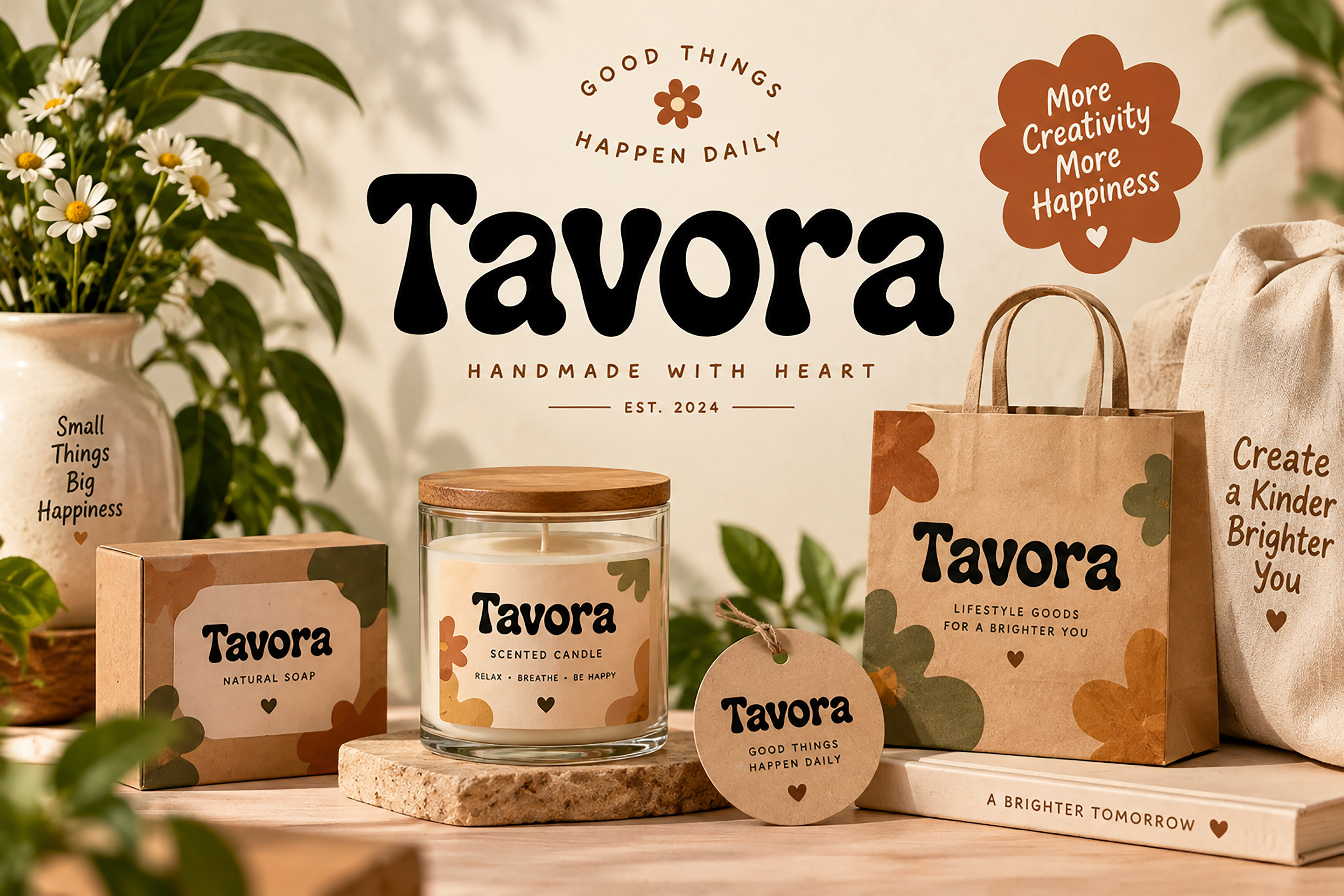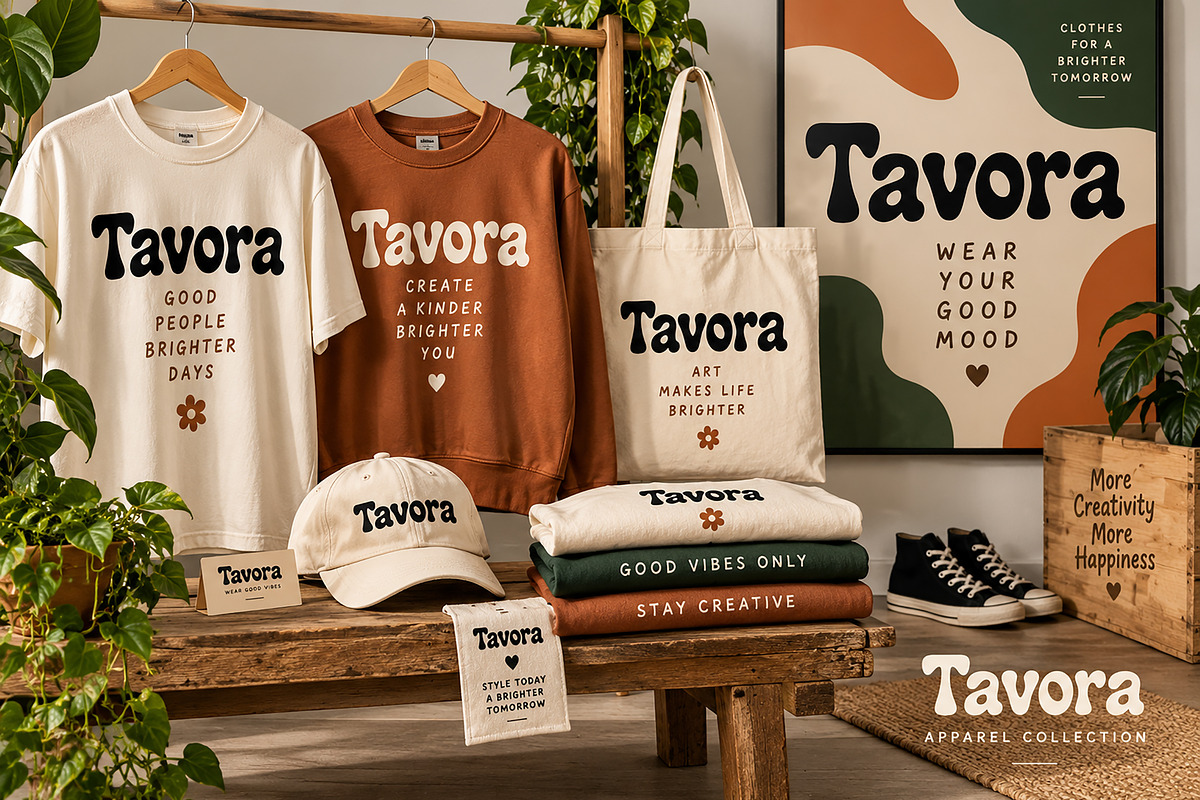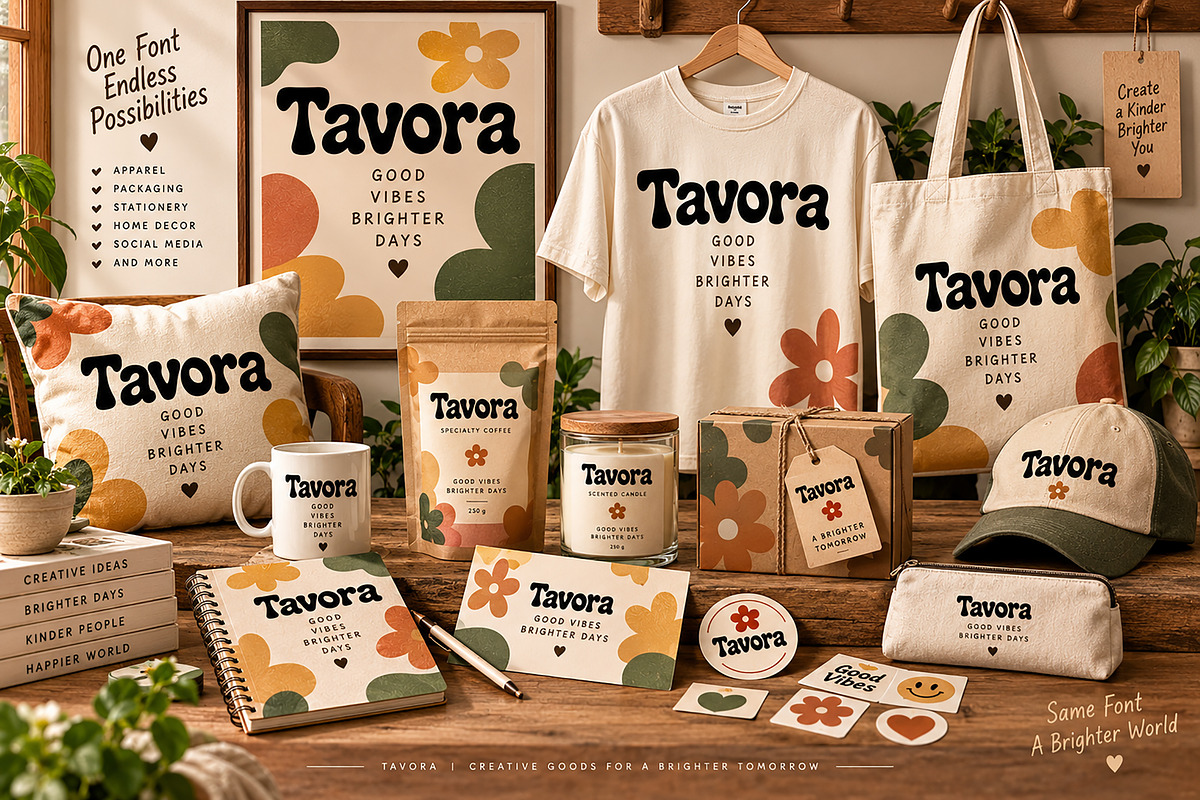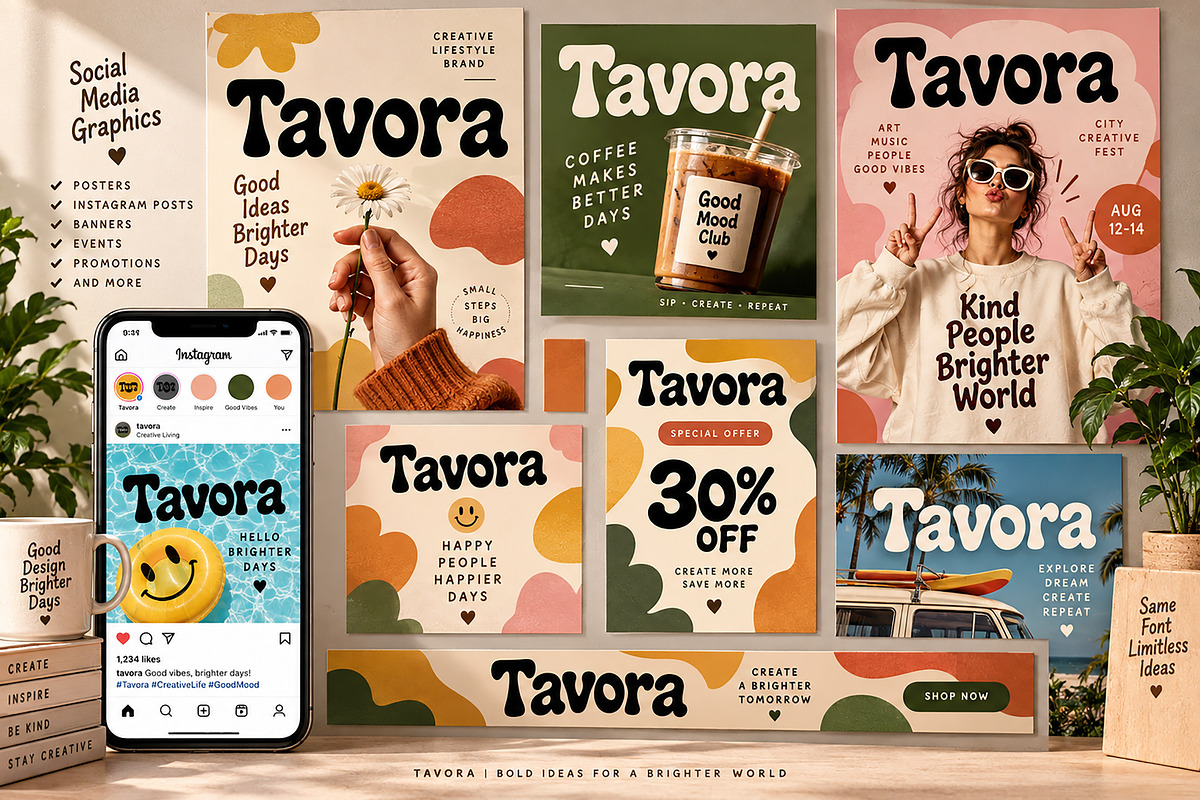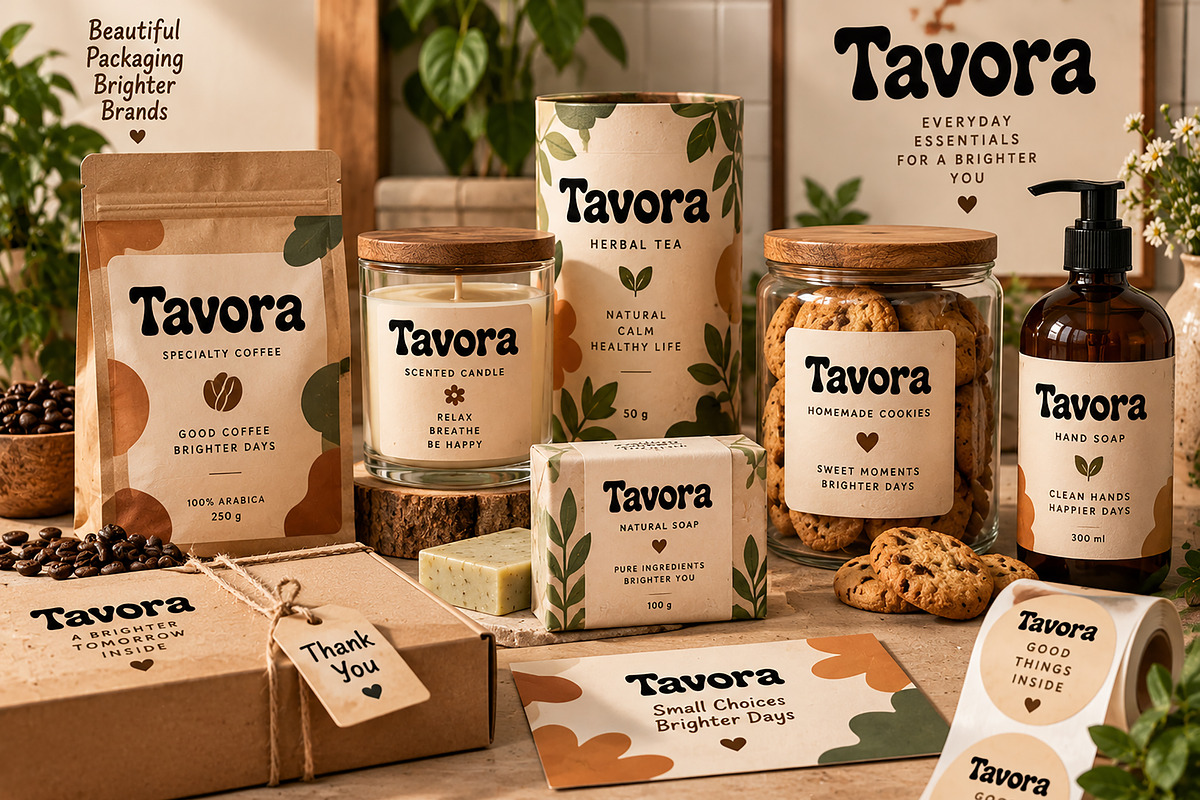
Tavora – Playful Bold Display Font
Meet Tavora, a bold and playful display font designed to bring a fun, friendly, and expressive personality to your creative projects. With its thick, rounded, organic letterforms and eye-catching presence, Tavora is perfect for designs that need a strong visual statement with a cheerful modern-retro feel.
Tavora works beautifully for branding, logos, apparel, packaging, posters, social media graphics, stationery, product labels, stickers, invitations, quotes, and creative merchandise.
Its distinctive rounded shapes make headlines and brand names instantly noticeable while adding a warm and approachable character to your designs.
Style: Bold / Rounded / Playful / Display
Tavora is made for designers who want their typography to stand out, feel memorable, and add personality to every project